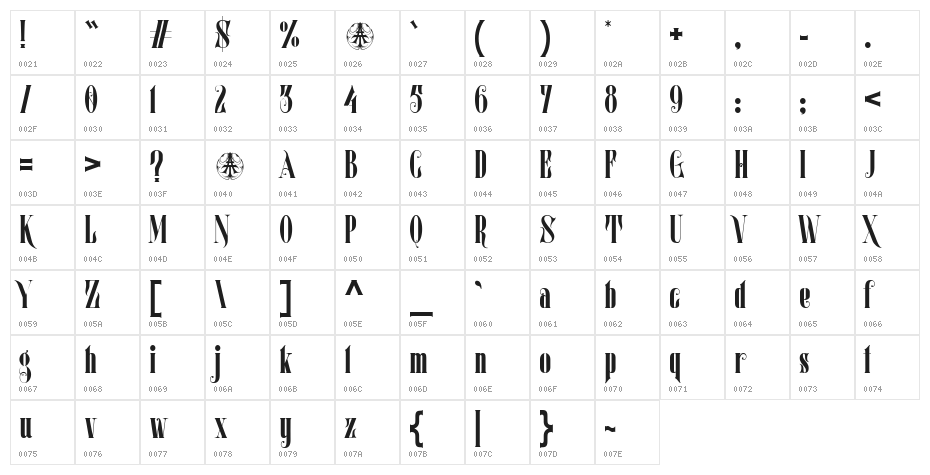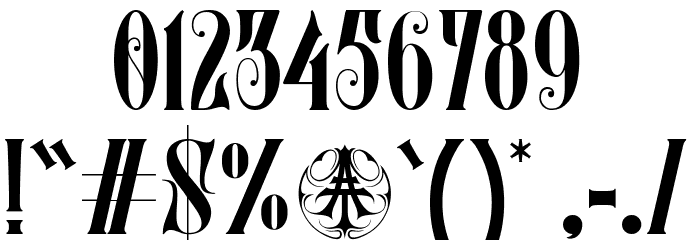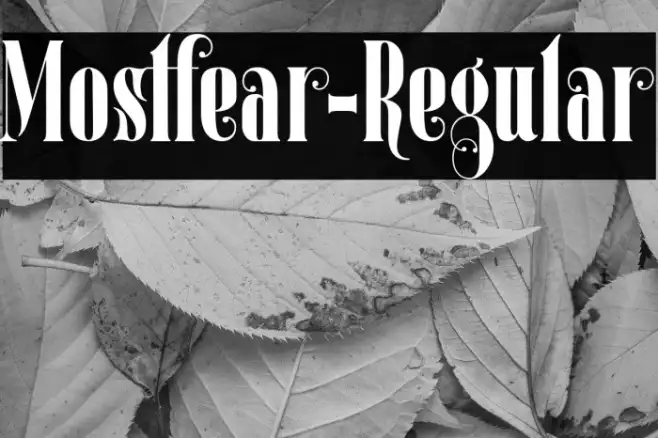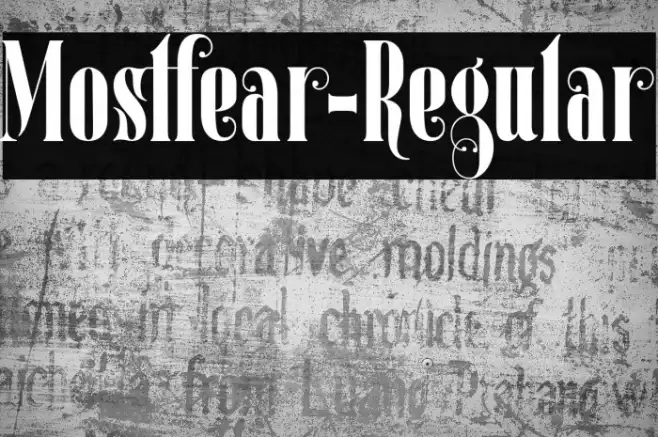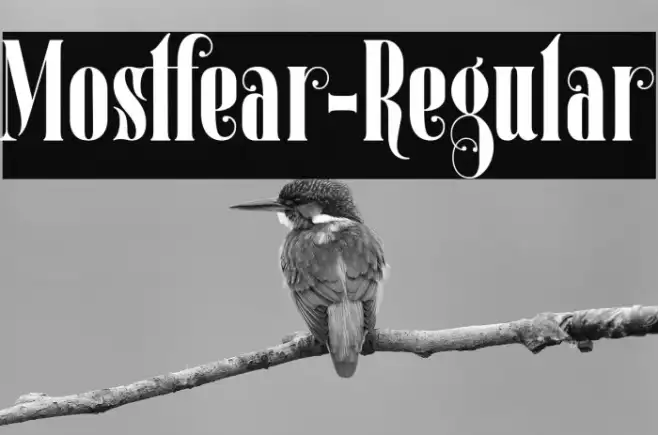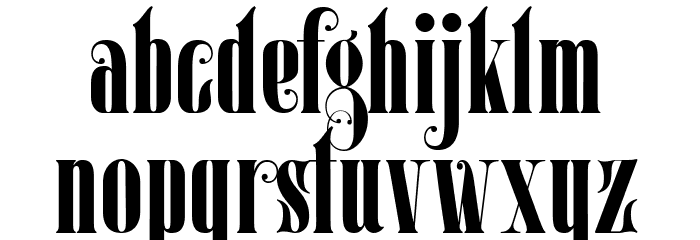
Mostfear-Regular Font
Mostfear-Regular Description
This font features an elaborate and decorative style with high contrast between thick and thin strokes. The uppercase letters are adorned with intricate swirls and flourishes, giving them a dramatic and artistic appearance. The lowercase letters maintain a more traditional form but still carry a sense of elegance and flair. The numerals are bold and consistent with the overall ornate design, while the special characters are uniquely styled to complement the font's aesthetic. This typeface is perfect for creating eye-catching headlines and designs that require a touch of sophistication and creativity.